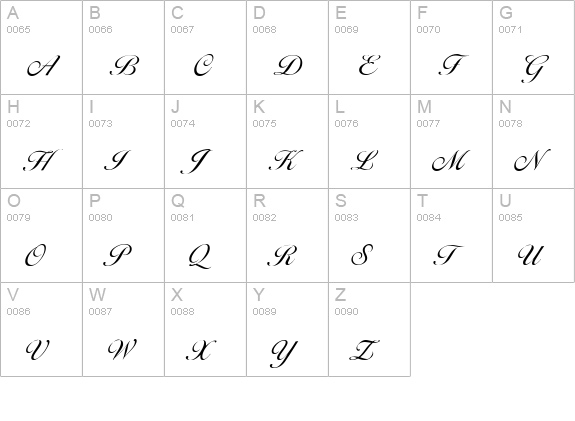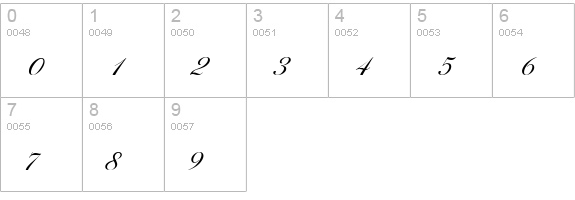
BallantinesSerial-Light-Regular is a refined, elegant variant in the BallantinesSerial typeface family \xE2\x80\x94 well suited to elegant body text, refined sub-headings, and luxury branding.
BallantinesSerial-Light-Regular is a sophisticated and elegant font that exudes a sense of modernity and professionalism. Its sleek lines and balanced proportions make it perfect for a wide range of design projects, from branding to editorial design. This versatile font is ideal for creating clean and polished layouts that will captivate your audience. What sets BallantinesSerial-Light-Regular apart is not only its refined aesthetics but also the fact that it is freely available to download at FontsMarket.com. This means that you can easily access this high-quality font without any cost, making it a valuable asset for designers and creatives looking to elevate their work without breaking the bank. Whether you're working on a website, a brochure, a logo, or any other design project, BallantinesSerial-Light-Regular is sure to bring a touch of sophistication and professionalism to your work. Download it for free today and see how it can enhance your designs with its timeless appeal.